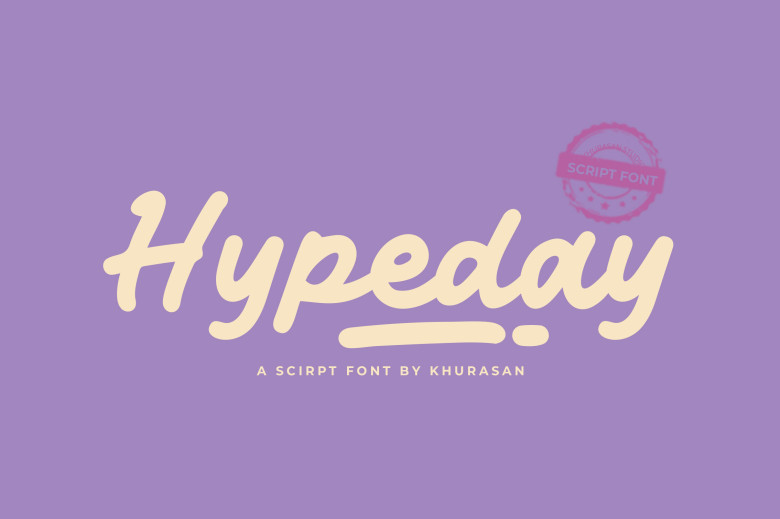
Hypeday Font
Hypeday is an eye-catching handwritten script font perfect for logos, posters, books, magazines and banners – not to mention banners! Download this font today to create beautiful designs – it matches an abundance of designs easily so your creativity will truly come to life!
Additionally, Hypeday features multiple-lingual compatibility as well as lowercase numerals, swashes and punctuation marks!
Hypeday Handwritten Script Font